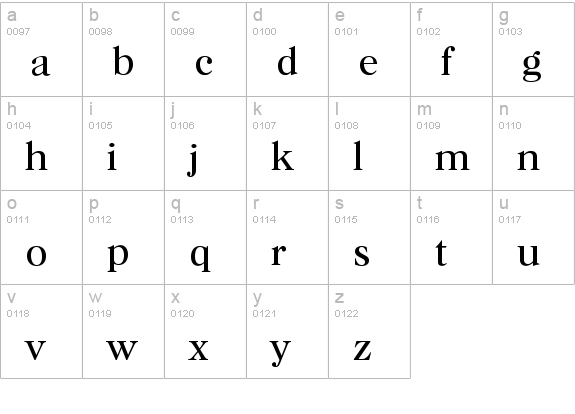
Horsham-Light is a refined, elegant variant in the Horsham typeface family \xE2\x80\x94 well suited to elegant body text, refined sub-headings, and luxury branding.
Horsham-Light is a sleek and modern font that exudes elegance and sophistication. Its clean lines and balanced proportions make it perfect for a wide range of design projects, from branding to editorial design. The thin strokes and subtle curves of Horsham-Light give it a timeless and classic feel, while still maintaining a contemporary edge. One of the best things about Horsham-Light is that it is available for free download at FontsMarket.com. This means that you can easily access this stylish and versatile font without any cost, making it a fantastic option for designers on a budget or anyone looking to add a touch of refinement to their projects. With Horsham-Light, you can create stunning visuals that are sure to impress and stand out from the crowd. Whether you're working on a logo, website, poster, or any other design project, Horsham-Light is sure to elevate your work and give it a polished and professional look. Try out Horsham-Light today and see for yourself the impact that this exquisite font can have on your designs.